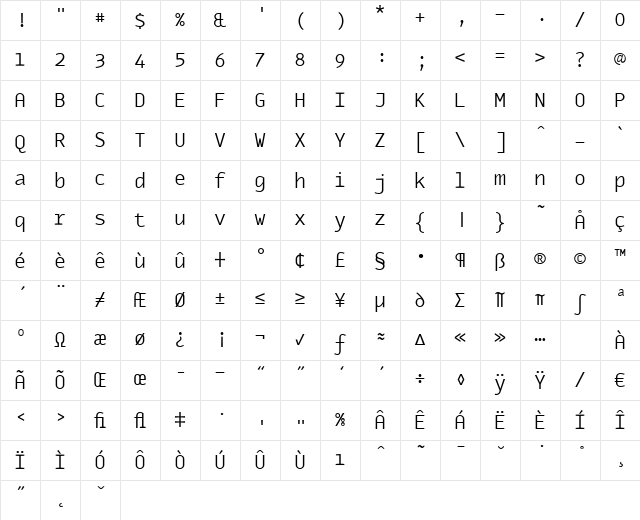
MonoxLight Regular
Foundry: Dino dos Santos _ DSType
Design Context for MonoxLight
MonoxLight uses fixed-width spacing throughout, giving it the structured, systematic character associated with coding environments and technical documentation. Its slender proportions lend an understated elegance to any composition.